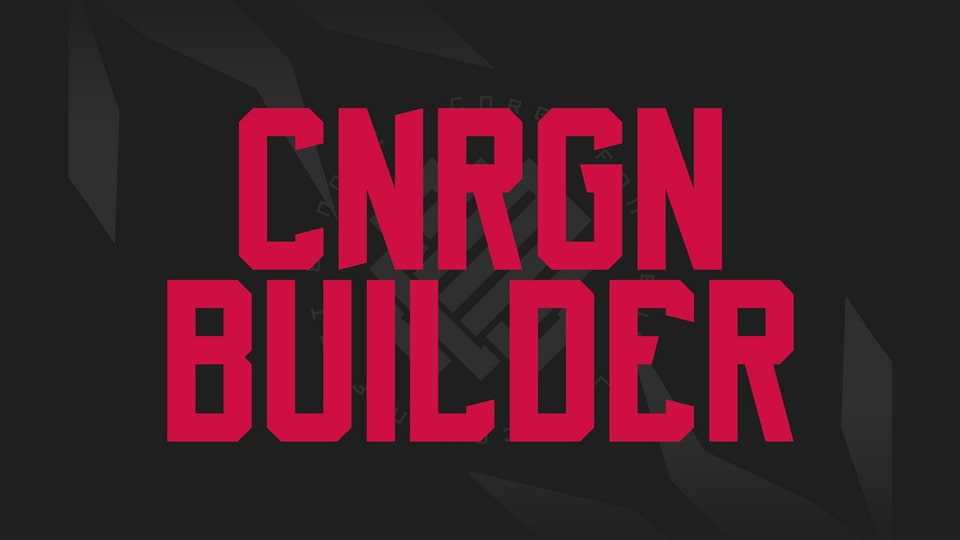
Download CNRGN Builder font, a bold and strong display typeface with a sharp geometric structure. CNRGN Builder can be applied in a wide range of designs like logos, posters, flyers, movie titles and magazine headlines.